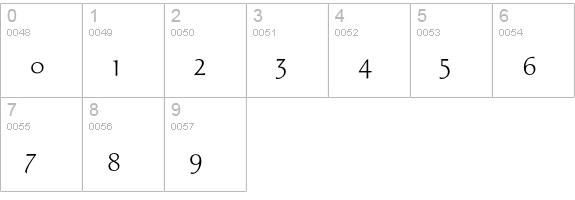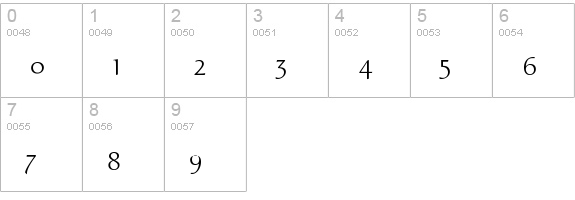
Oxalis Std Light Font Details
Oxalis Std Light is a refined, elegant variant in the Oxalis typeface family \xE2\x80\x94 well suited to elegant body text, refined sub-headings, and luxury branding.
Oxalis Std Light font is a stunning and elegant typeface that exudes sophistication and modernity. Its delicate lines and graceful curves make it perfect for a wide range of design projects, from branding to editorial design. The light weight of this font adds a touch of elegance and refinement to any text. What makes Oxalis Std Light font even more appealing is that it is available for free download at FontsMarket.com. This means that you can easily access this beautiful typeface and use it in your projects without any cost. Whether you are a designer looking to add a touch of class to your work or a business owner wanting to enhance your brand's visual identity, Oxalis Std Light font is the ideal choice. Download it now and elevate your designs with this exquisite typeface.